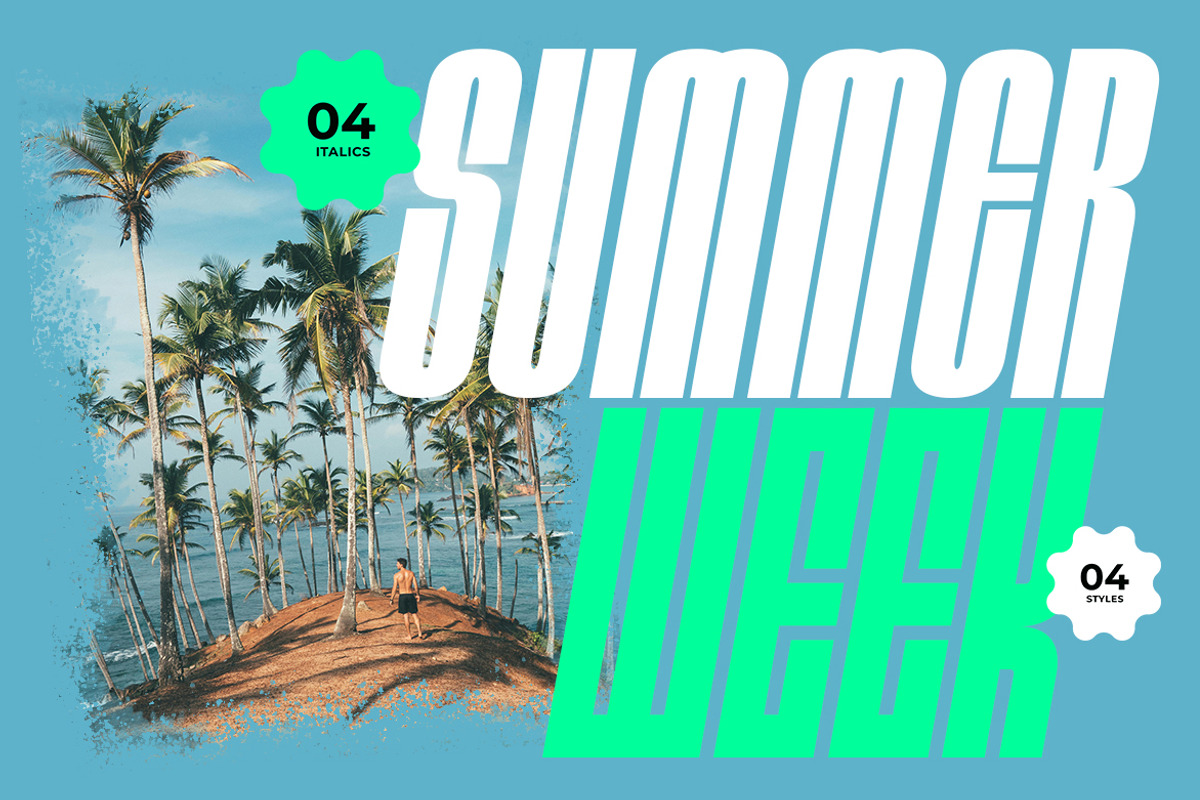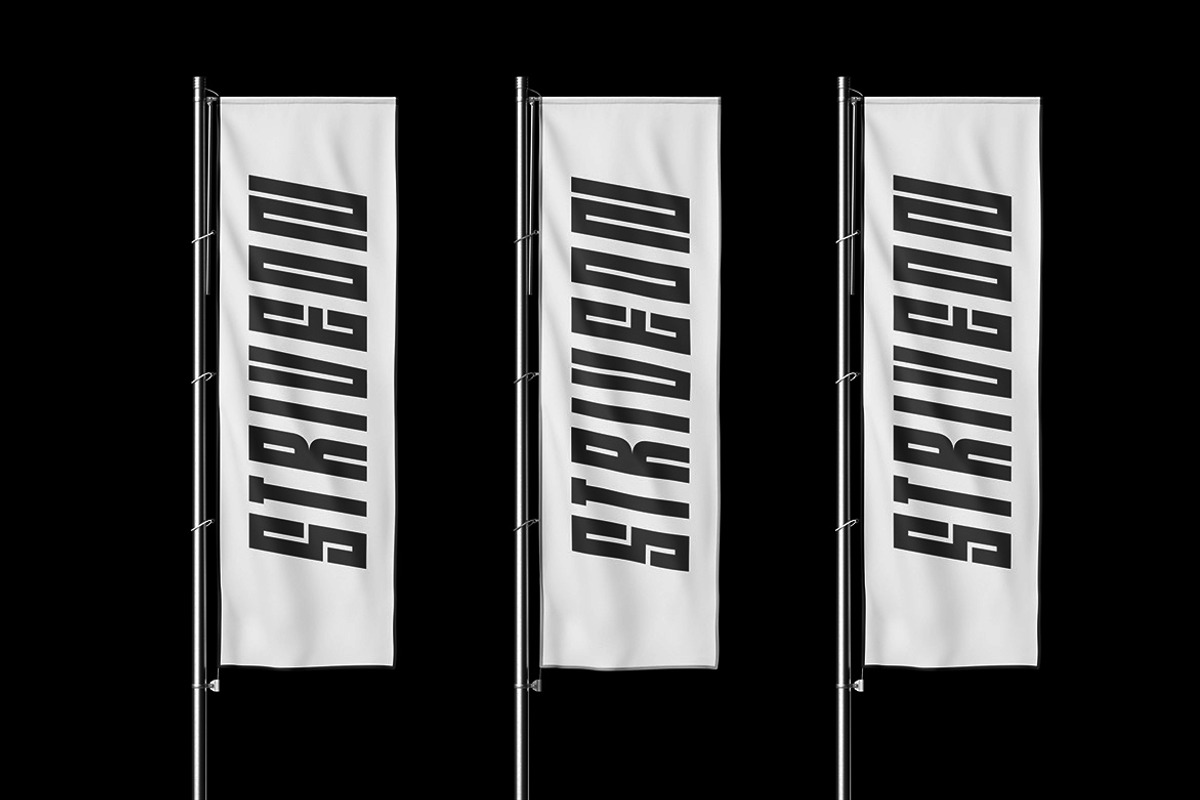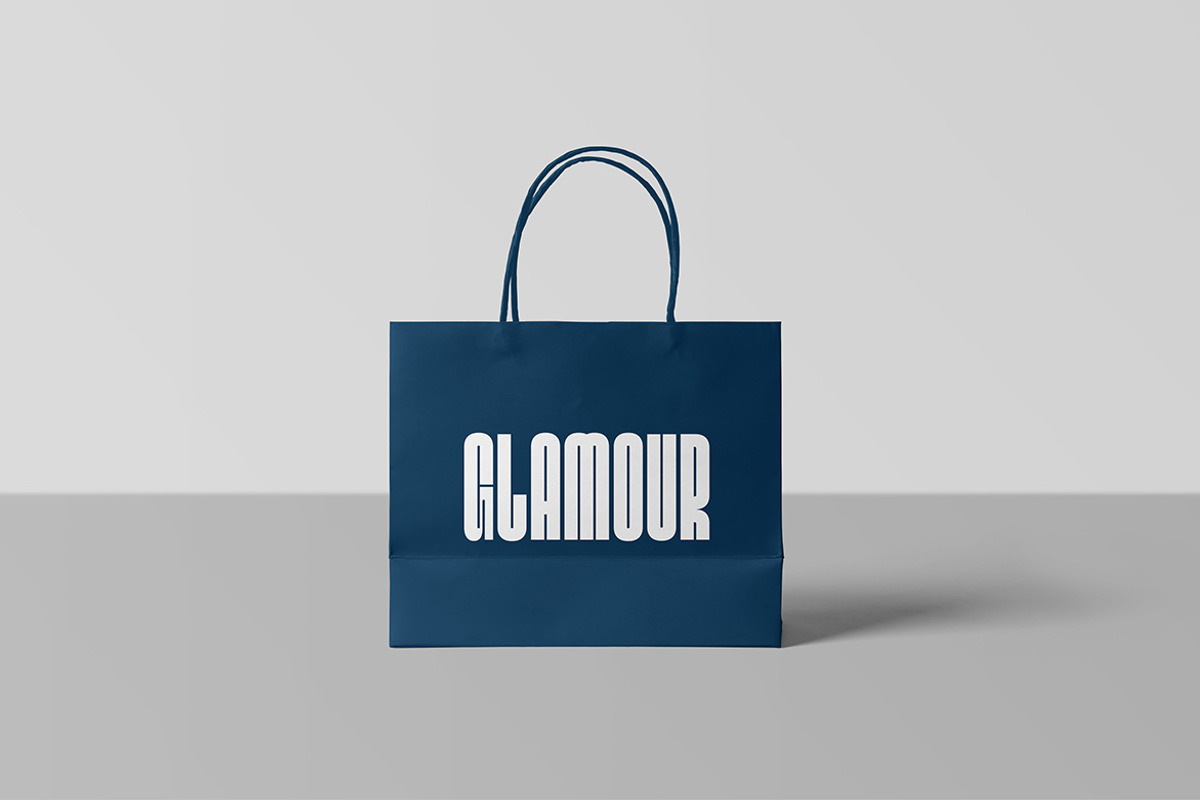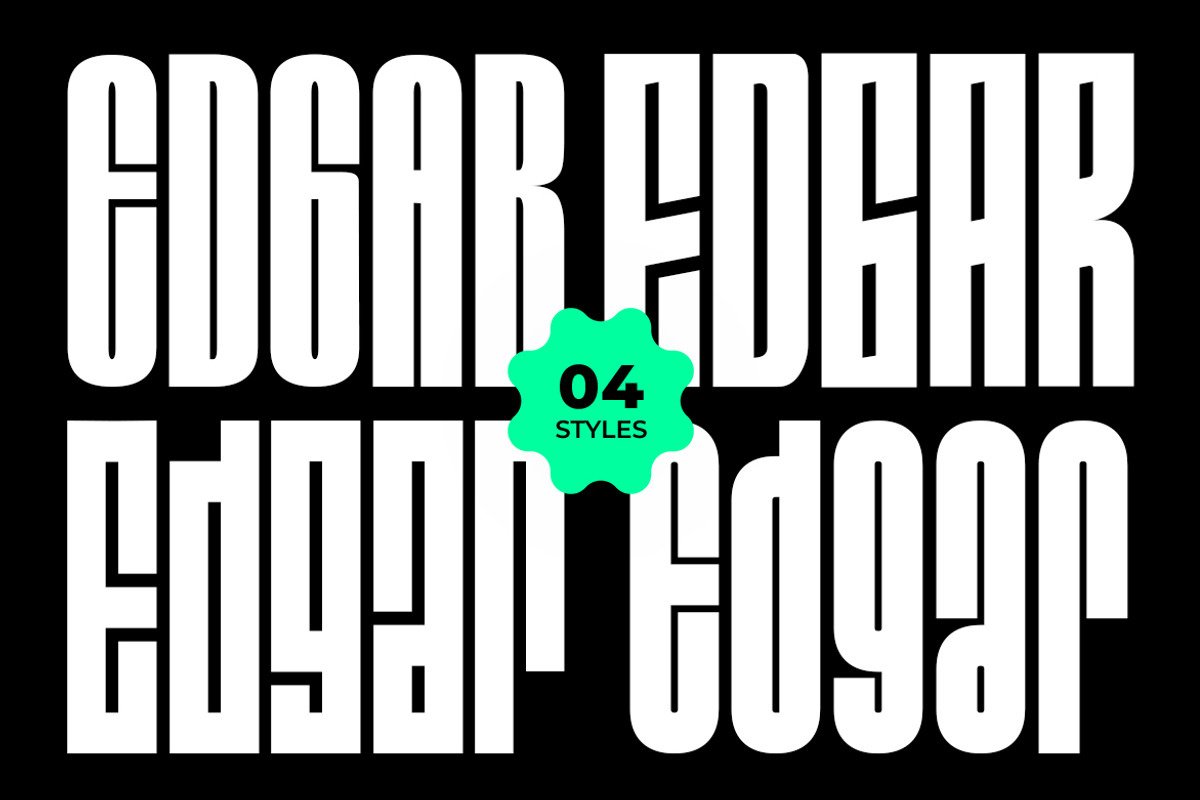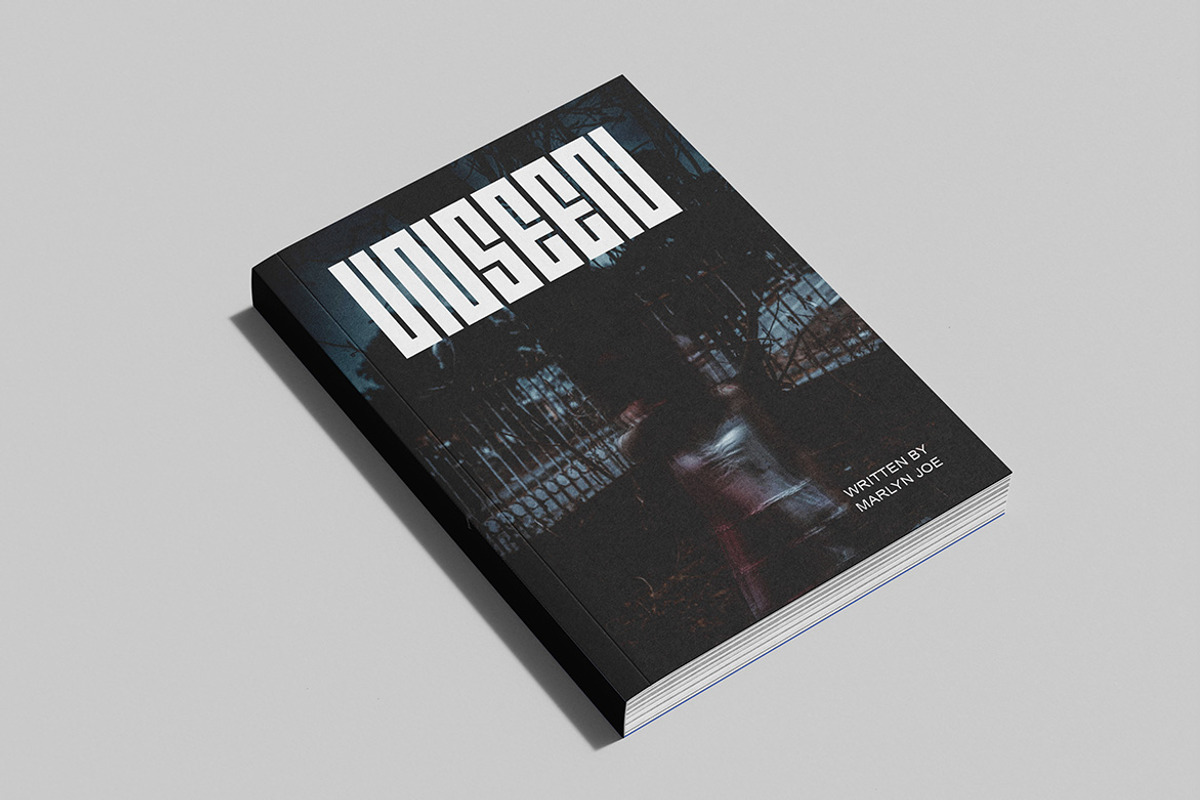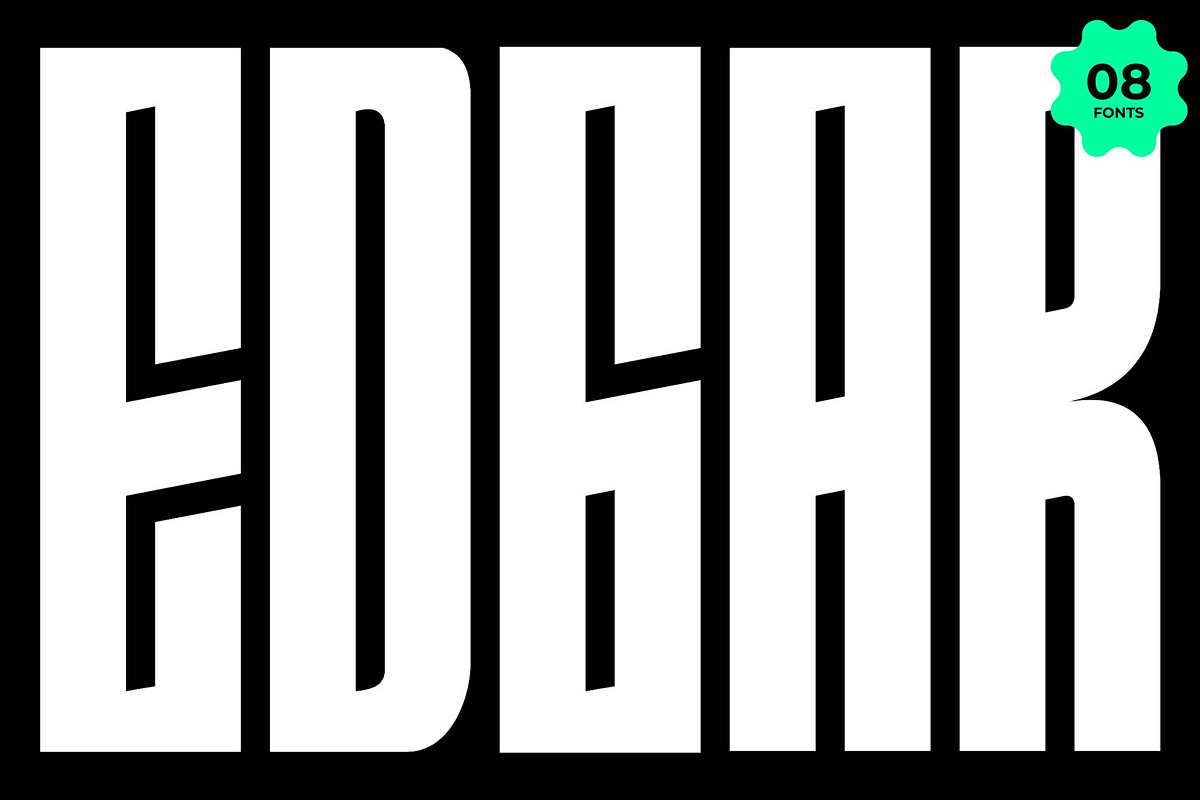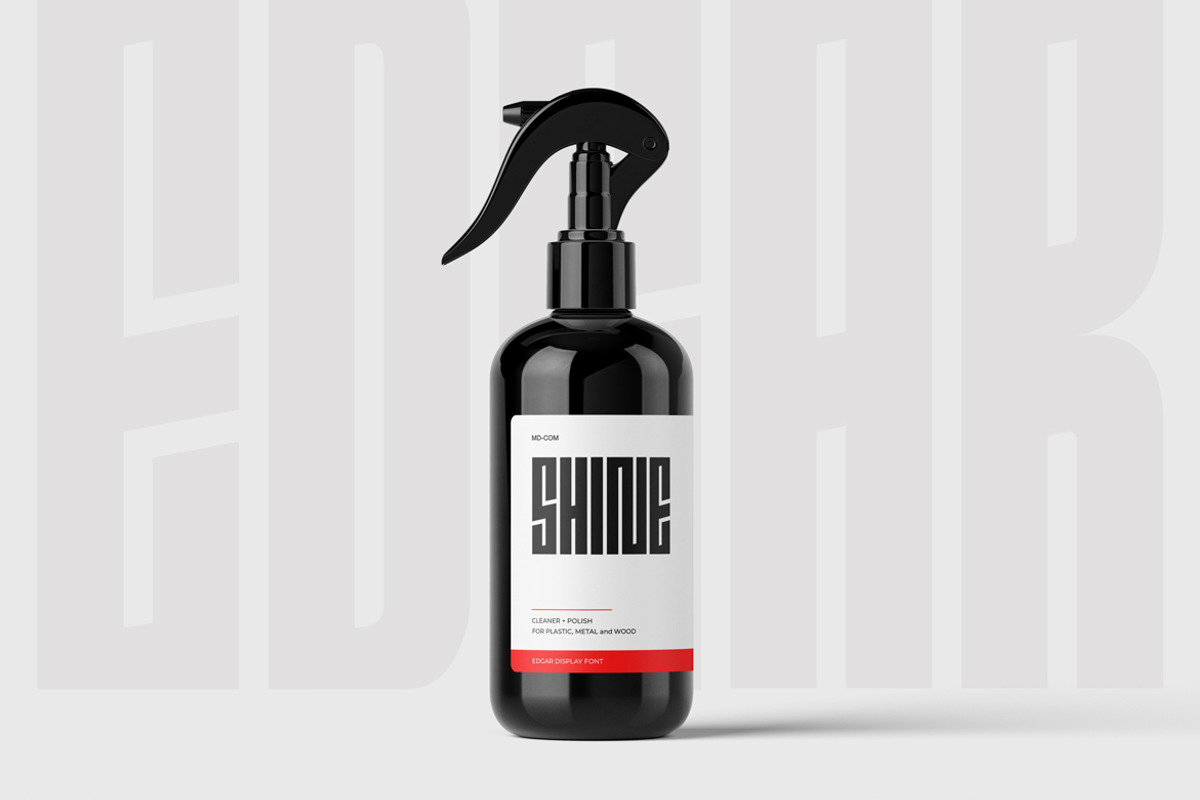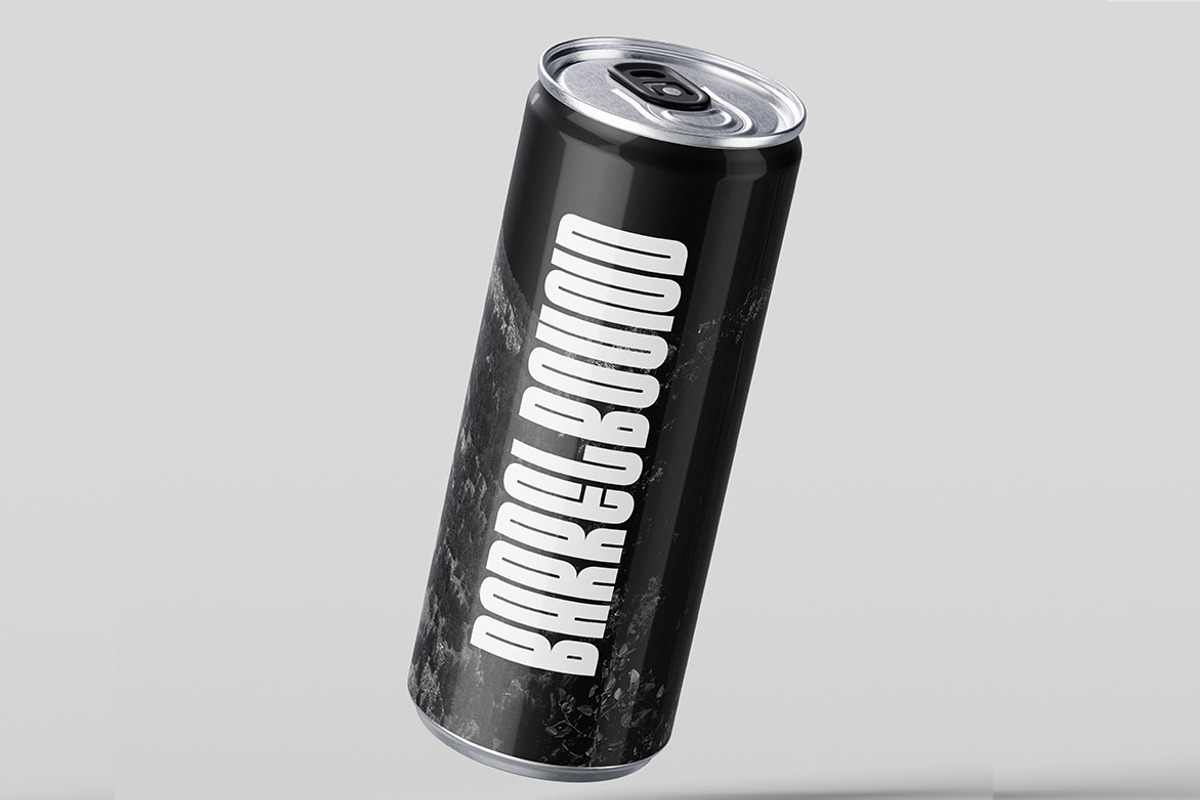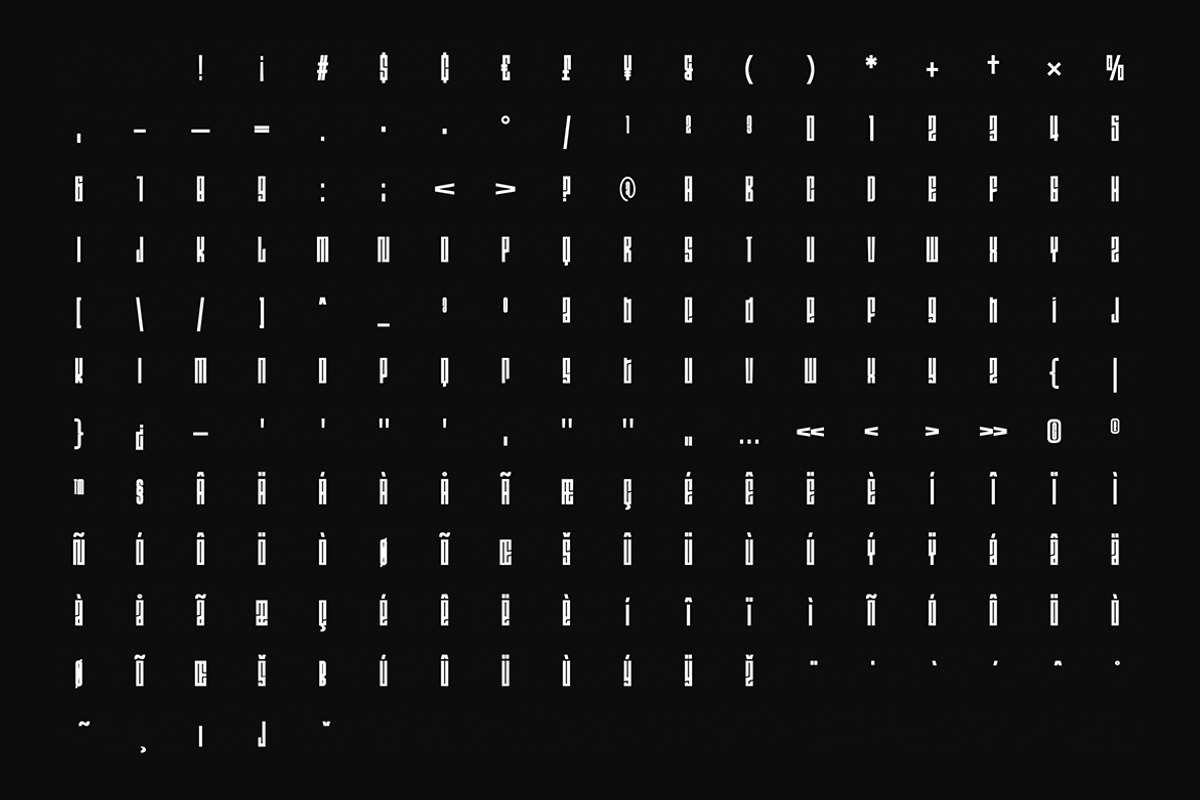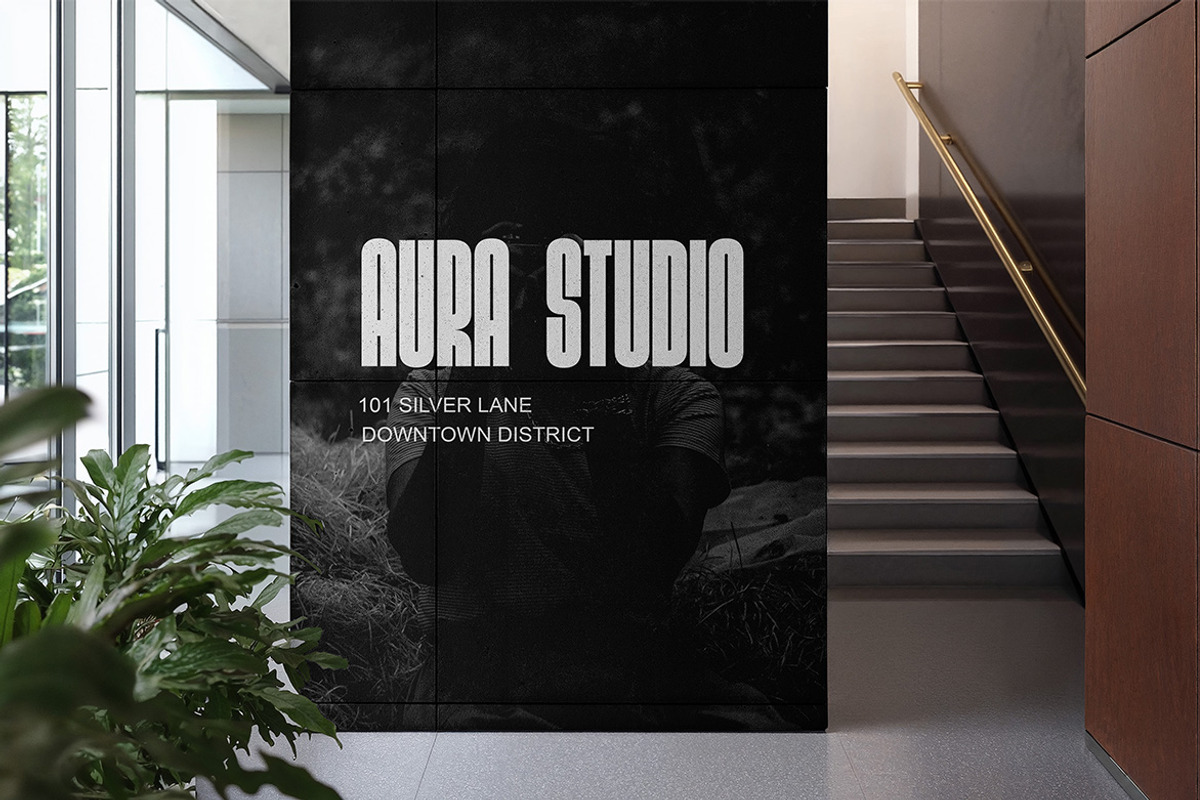
Edgar - Condensed Display Sans-Serif
EDGAR – Display Sans-Serif Font Family
The EDGAR font family is a bold and ultra-condensed display typeface crafted to deliver high visual impact in modern design. With its towering vertical form, sharp internal angles, and brutalist character, EDGAR is made to stand out across posters, branding, album covers, packaging, and digital compositions.
This family includes four distinctive styles — Cosmic, Sigma, Micah, and Normal — each bringing its own structural rhythm and tone. All styles come with matching Italics, giving you a total of 08 fonts to unlock striking typographic combinations.
It supports more than 100 languages, making it a solid and flexible choice for global design projects.
- Uppercase letters
- Lowercase letters
- Punctuations
- Glyph Count: 200+